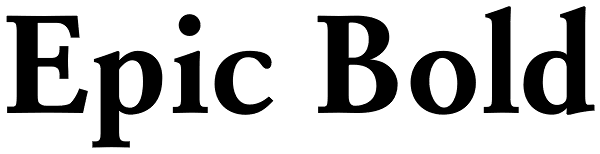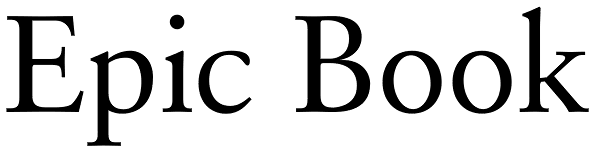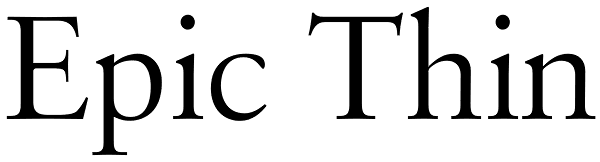
Epic
What started out as a typographic exercise to produce the TypeTrust logotype turned out to be the product of obsession. Epic is the culmination of two years of work that has yielded a versatile and respectful contemporary garalde. With a full...